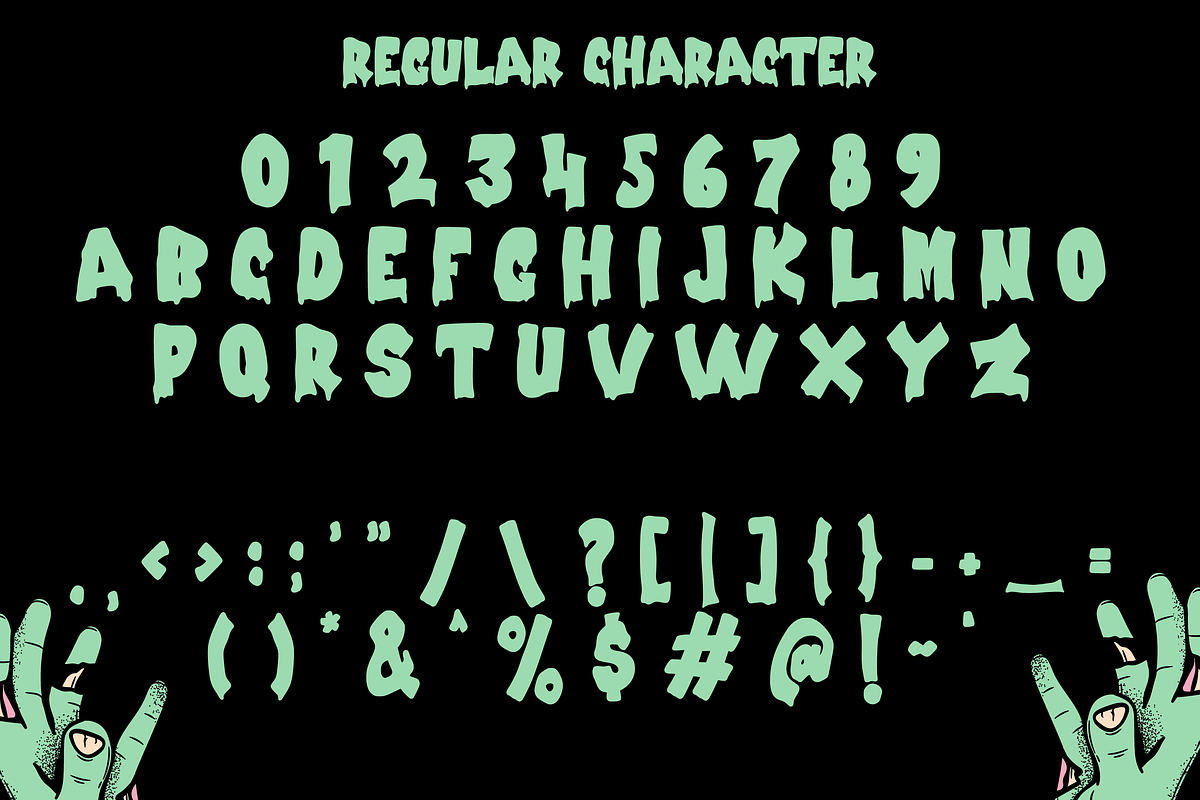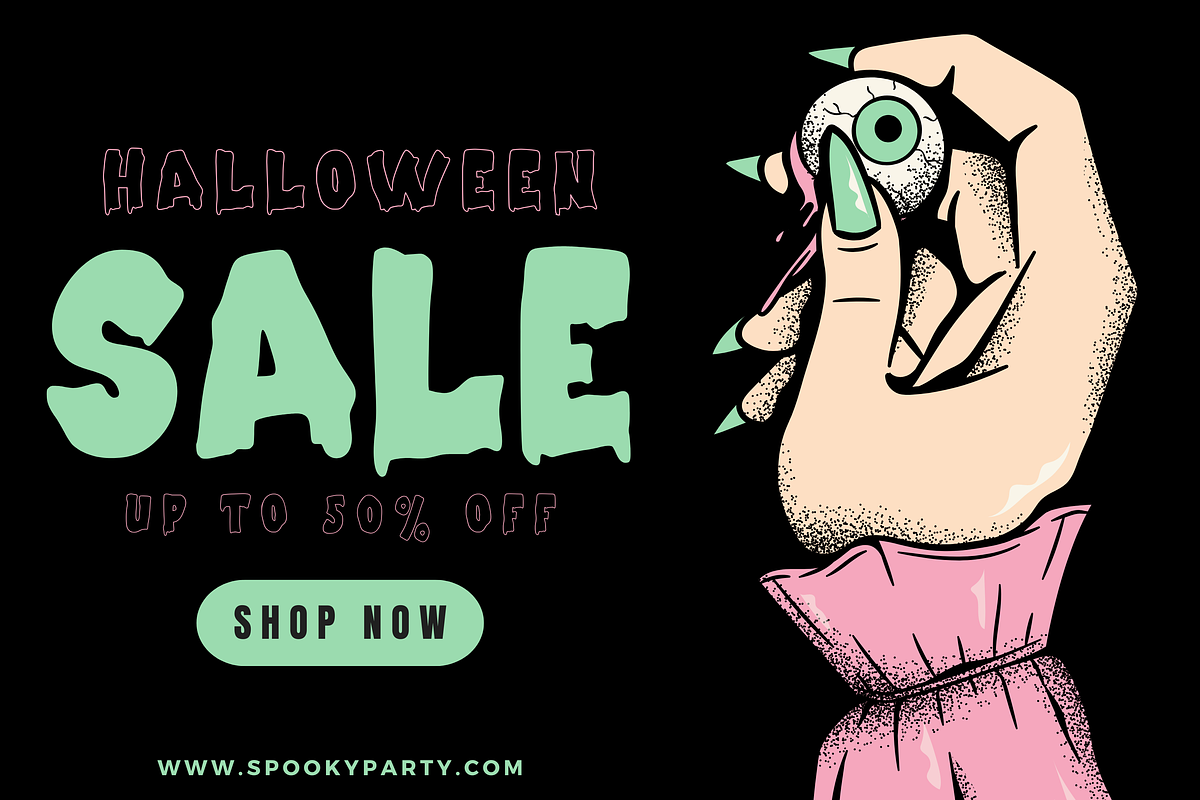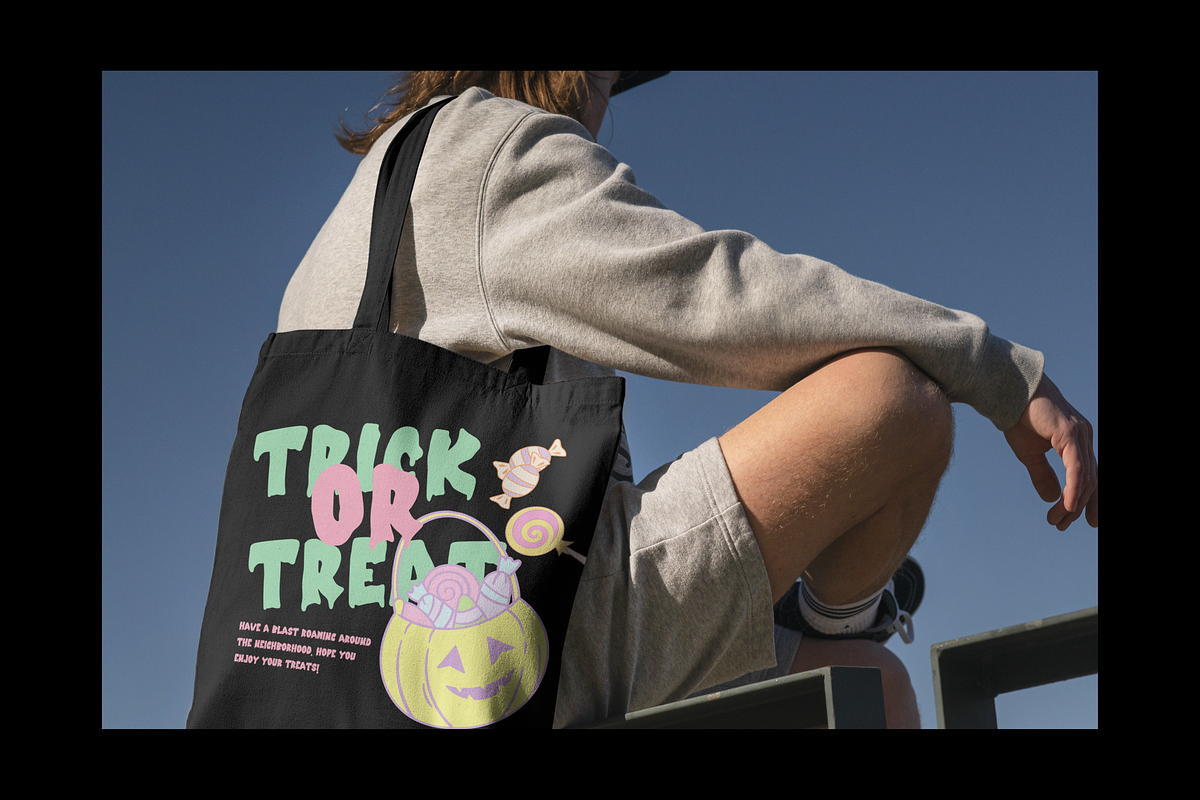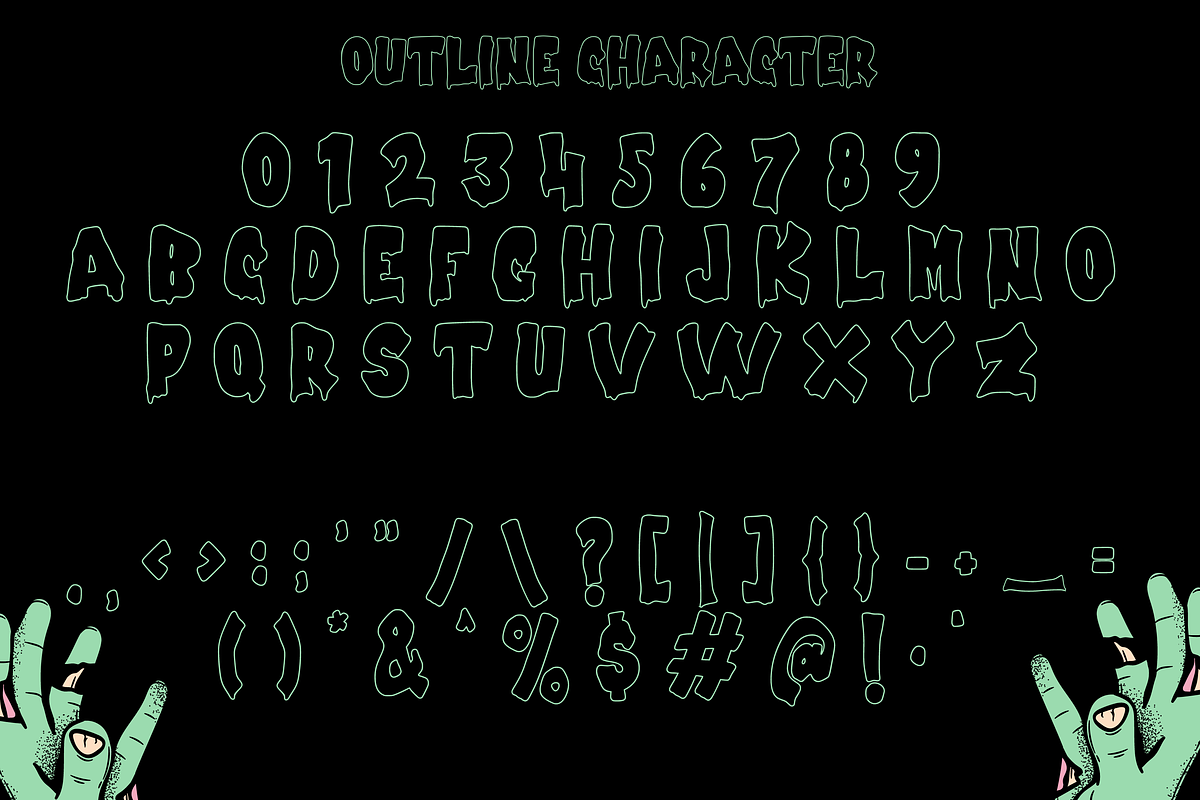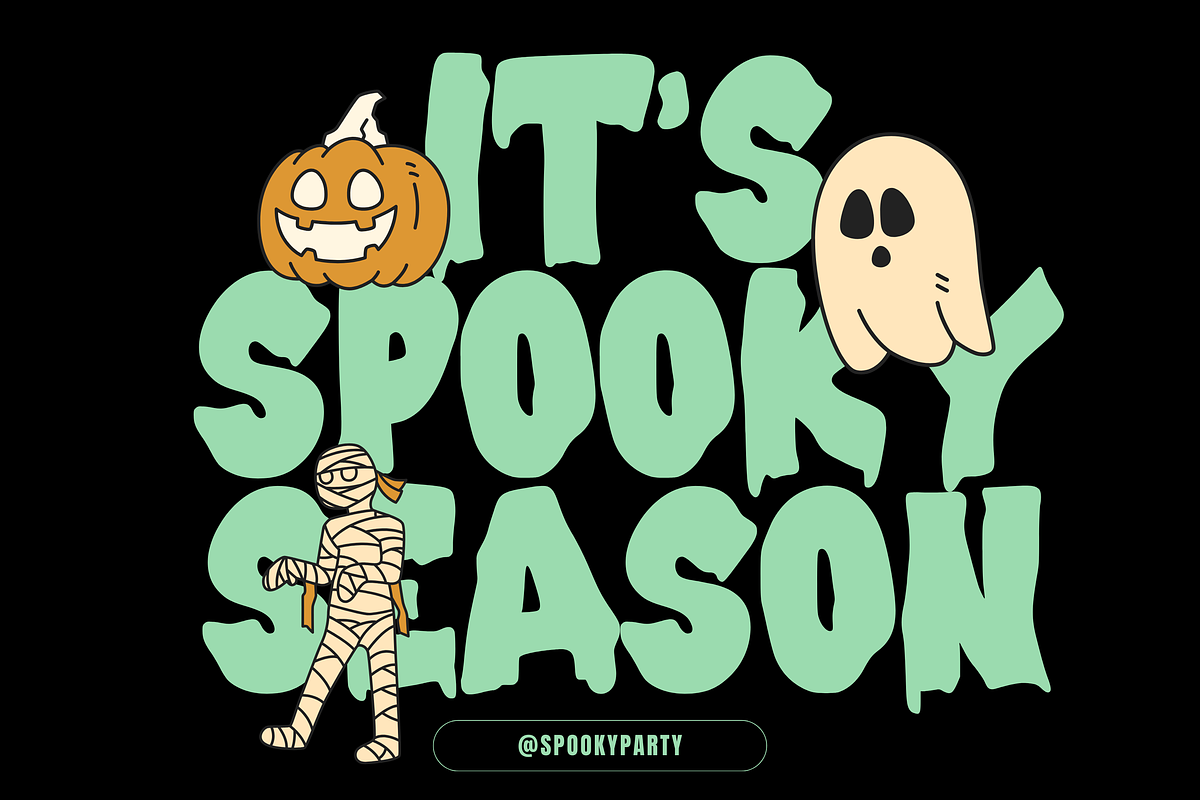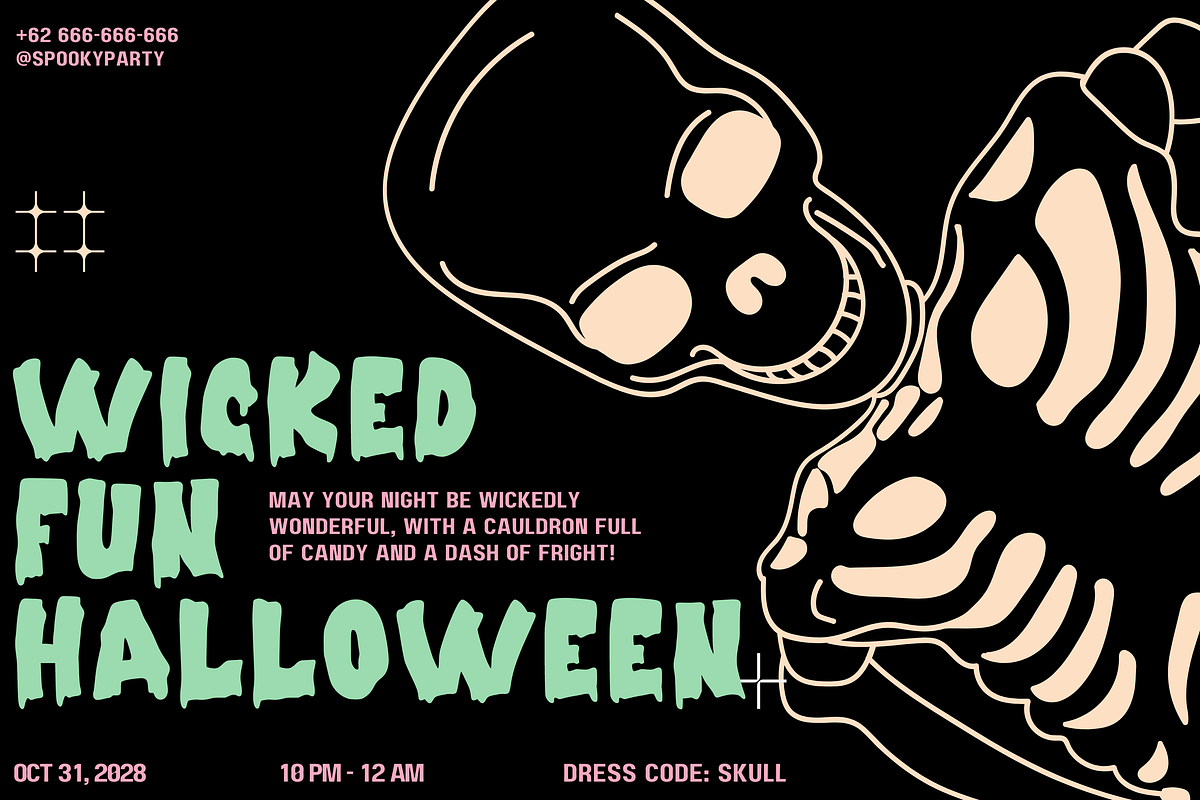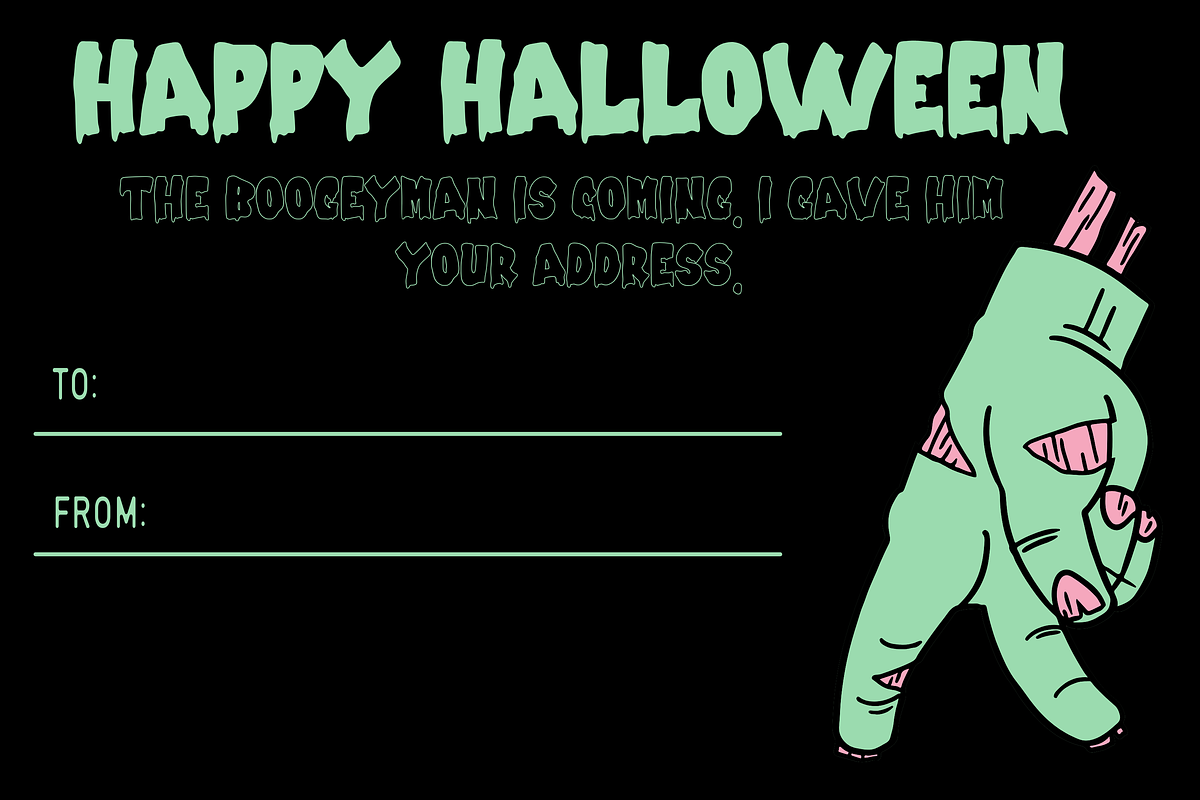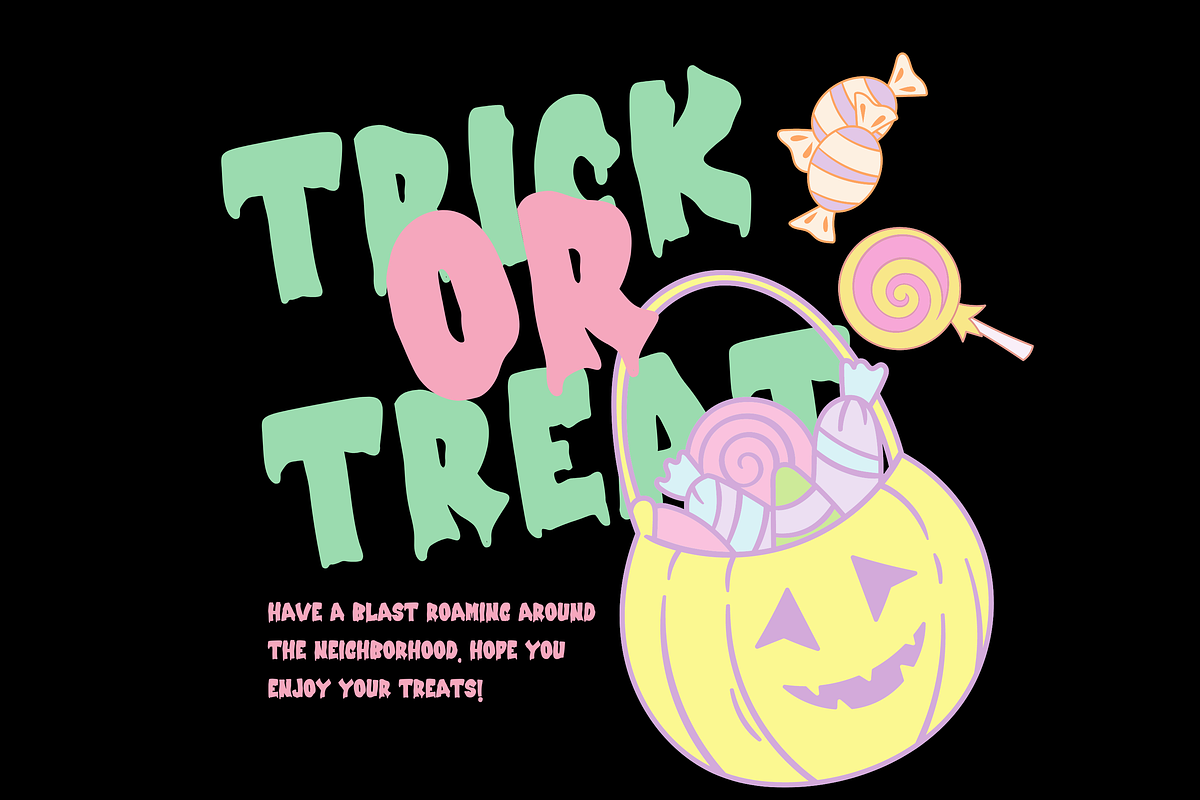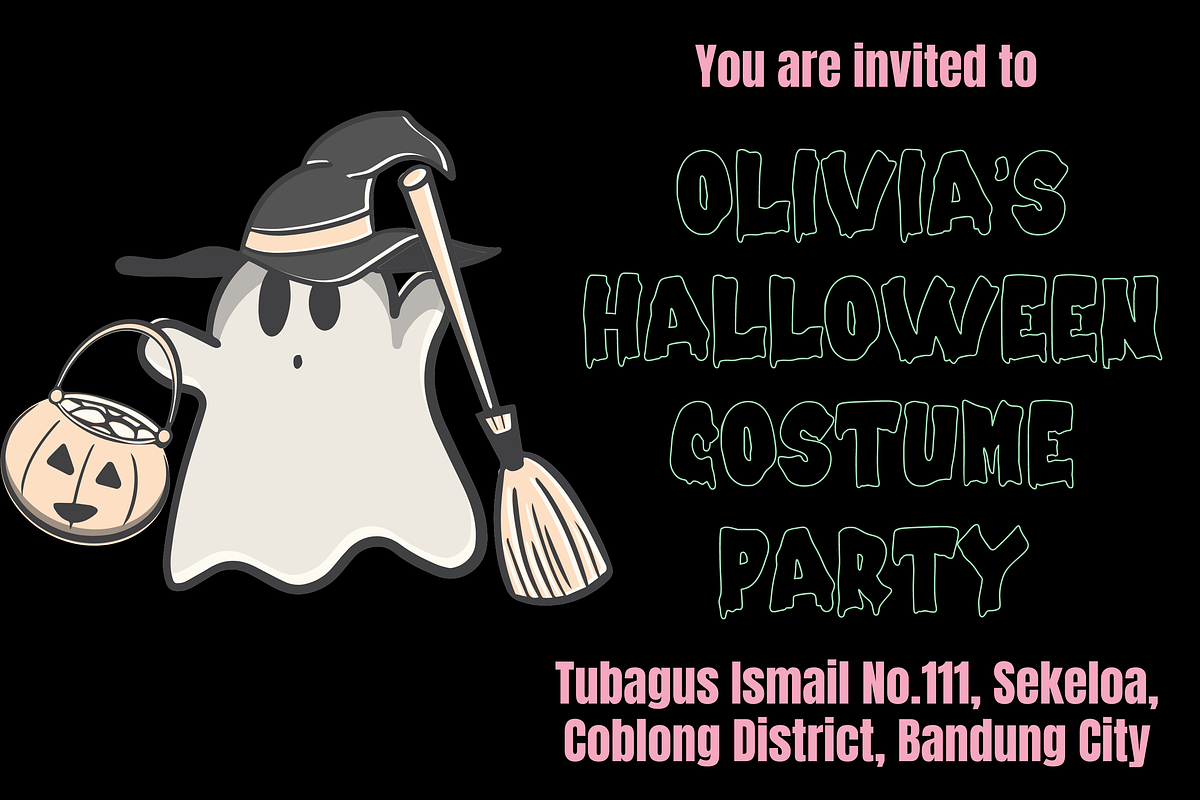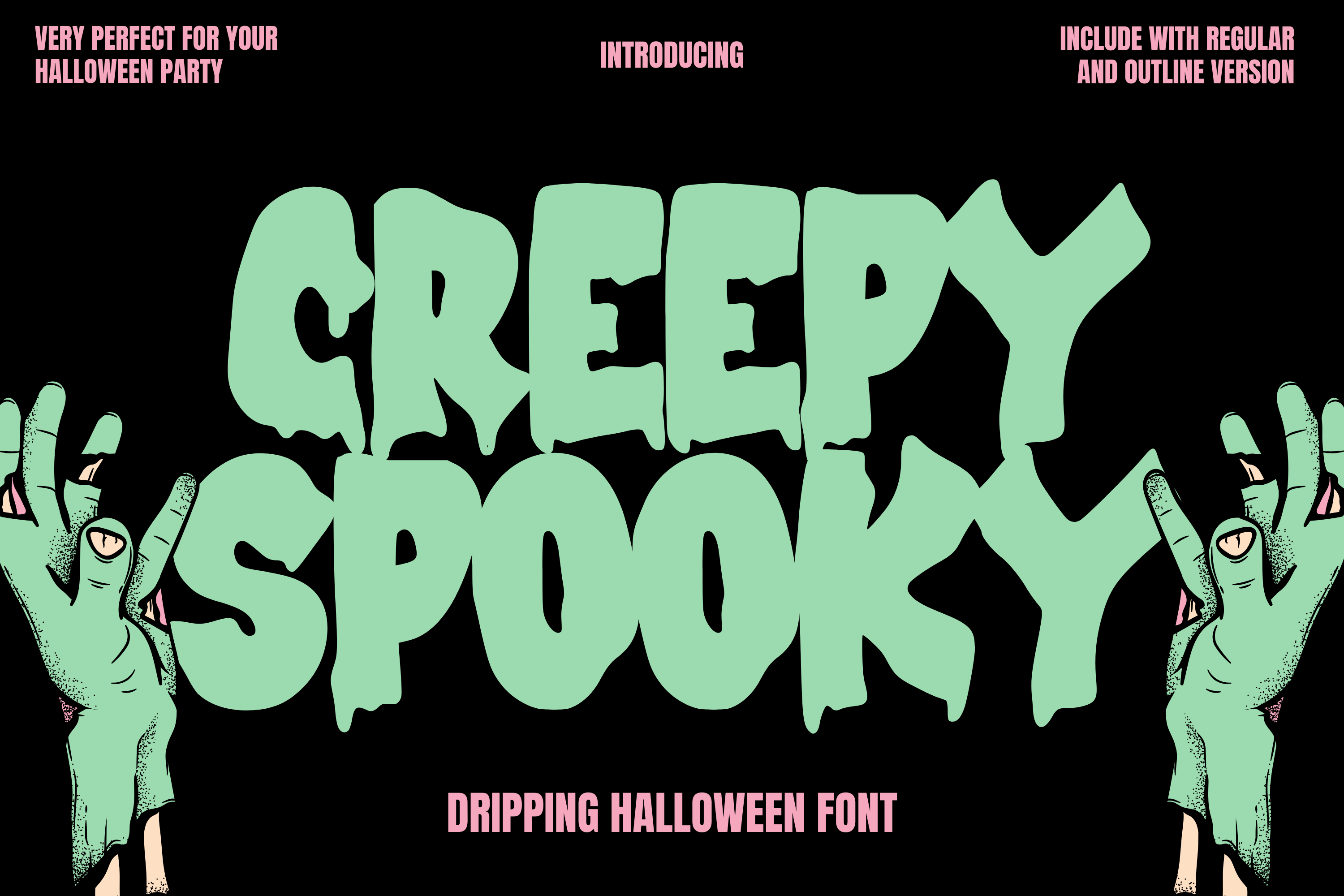
Creepy Spooky - Halloween Font
Creepy Spooky is a dripping Halloween font that brings the perfect blend of fright and fun to any Halloween-themed design. The font features characters that appear as if they are melting, with a distinctive dripping effect that resembles oozing slime or blood, adding an instant air of horror to your text. Each letter is crafted with jagged edges and uneven lines, contributing to the unsettling, eerie vibe that is synonymous with the Halloween season.
Features and Functions:
Unique Dripping Effect: The standout feature of Creepy Spooky is its dripping effect, which gives the impression that the letters are slowly disintegrating or bleeding. This effect is ideal for creating a chilling atmosphere in your designs.
Bold and Attention-Grabbing: The font is designed to be bold and eye-catching, ensuring that your text stands out even in visually busy environments like posters, banners, or social media posts.
Versatile Use: Creepy Spooky is perfect for a wide range of Halloween-related projects. Use it for designing party invitations, event posters, greeting cards, or even themed merchandise. It’s also great for digital content, including social media graphics, website headers, or video titles.
Thematic Consistency: This font encapsulates the essence of Halloween, making it a go-to choice for any project that needs a spooky, haunted, or eerie aesthetic. It’s particularly effective when paired with dark, contrasting backgrounds, which enhance the dripping effect.
Easy to Read: Despite its elaborate design, Creepy Spooky maintains legibility, ensuring that your message comes across clearly while still evoking a sense of horror.
In summary, Creepy Spooky is a dripping Halloween font that combines creativity with the macabre. Its dripping effect, bold presence, and thematic consistency make it an excellent choice for any Halloween-themed design project, ensuring your work captures the true spirit of the season.